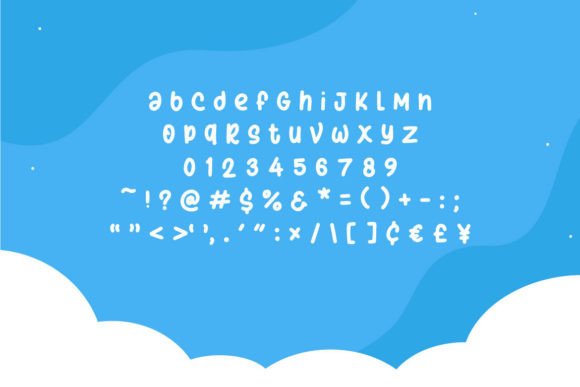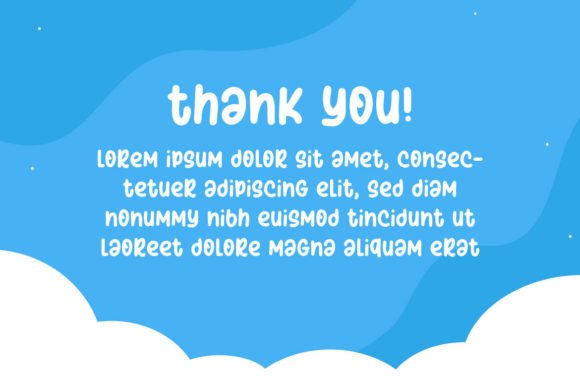
Introducing Childrens Font: The Ultimate Choice for Fun and Playful Designs
Are you a designer, crafty enthusiast, or a brand looking for a font that can add a touch of fun and playfulness to your work? Look no further than Childrens Font! This comic display font is designed to bring happiness to each word, making it perfect for a wide range of applications, from comic books to social media content.
What is Childrens Font?
Childrens Font is a unique and engaging typeface that is sure to capture the attention of your audience. Its fun and playful style makes it an excellent choice for designs that require a lighthearted and humorous tone. Whether you’re working on a children’s book, a poster, or a brand logo, Childrens Font is the perfect choice to add a touch of whimsy and delight.
Key Features of Childrens Font
- Fun and Playful Style: Childrens Font is designed to bring a smile to your face. Its playful style is perfect for designs that require a lighthearted and humorous tone.
- Comic Display Font: Childrens Font is a comic display font that is perfect for headlines, titles, and other display text.
- Versatile: Childrens Font can be used in a wide range of applications, from comic books to social media content.
- Easy to Read: Despite its playful style, Childrens Font is easy to read, making it perfect for body text as well.
Use Cases for Childrens Font
Childrens Font is a versatile typeface that can be used in a wide range of applications, including:
- Comic Books: Add a touch of fun and playfulness to your comic book with Childrens Font.
- School and Kindergarten: Use Childrens Font to create engaging and fun educational materials.
- Storybooks: Bring your storybook characters to life with Childrens Font.
- Kids’ Stuff Brands: Use Childrens Font to create a fun and playful brand identity for your kids’ products.
- Children’s Books: Childrens Font is perfect for children’s books, adding a touch of whimsy and delight to your story.
- Posters and Advertisements: Use Childrens Font to create eye-catching posters and advertisements.
- Social Media Content: Add a touch of fun and playfulness to your social media content with Childrens Font.
- Logos: Use Childrens Font to create a fun and playful logo for your brand.
Why Choose Childrens Font?
- Unique and Engaging: Childrens Font is a unique and engaging typeface that is sure to capture the attention of your audience.
- Fun and Playful: Childrens Font is designed to bring happiness to each word, making it perfect for designs that require a lighthearted and humorous tone.
- Versatile: Childrens Font can be used in a wide range of applications, making it a great addition to your font library.